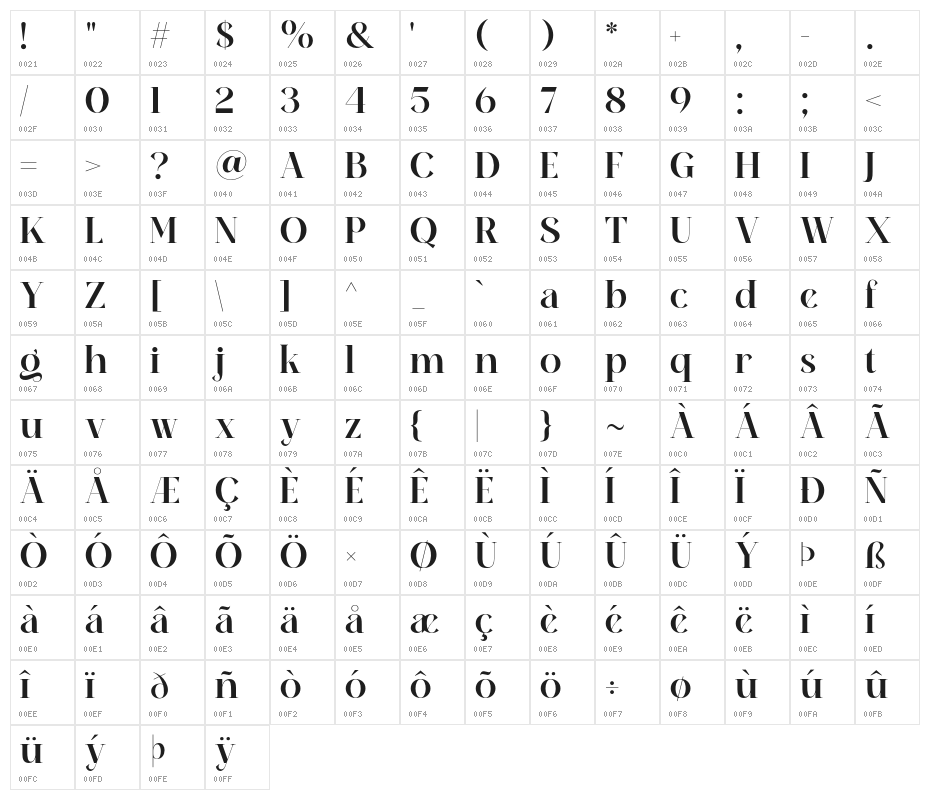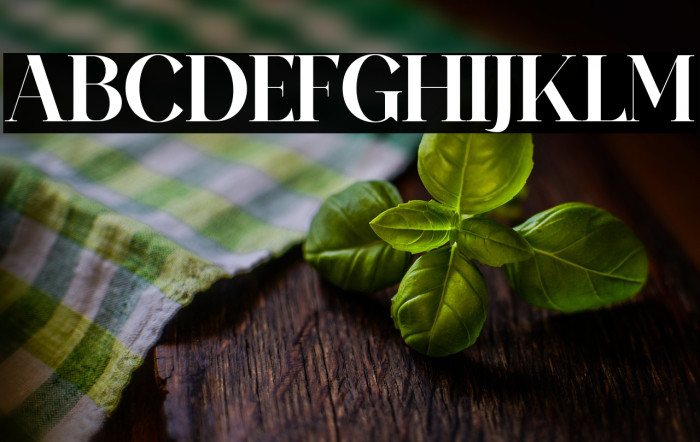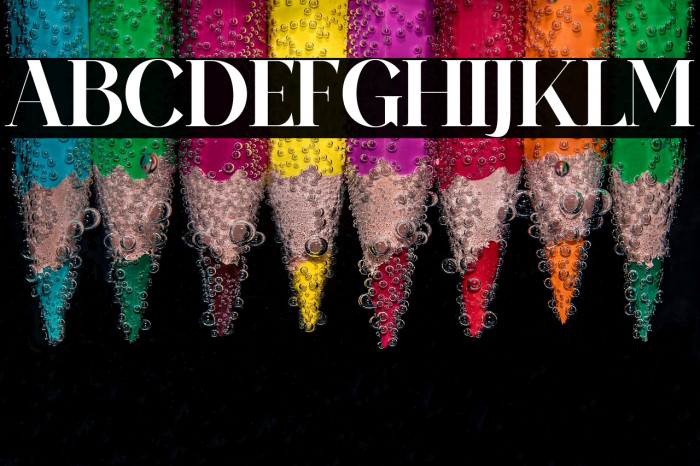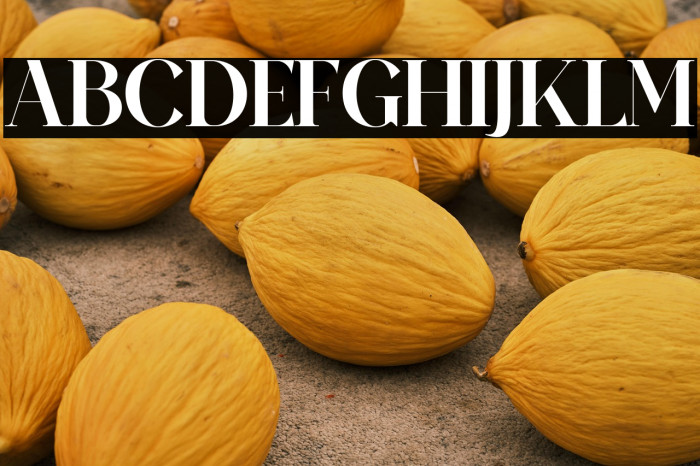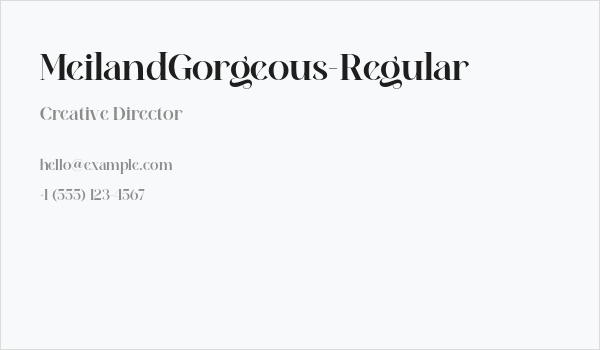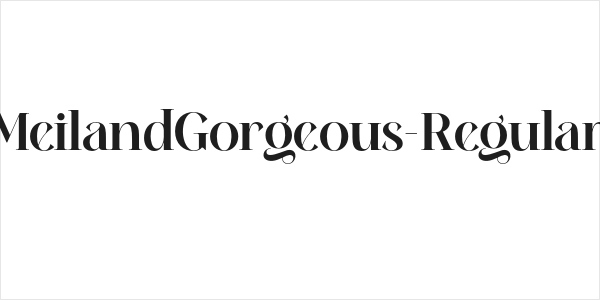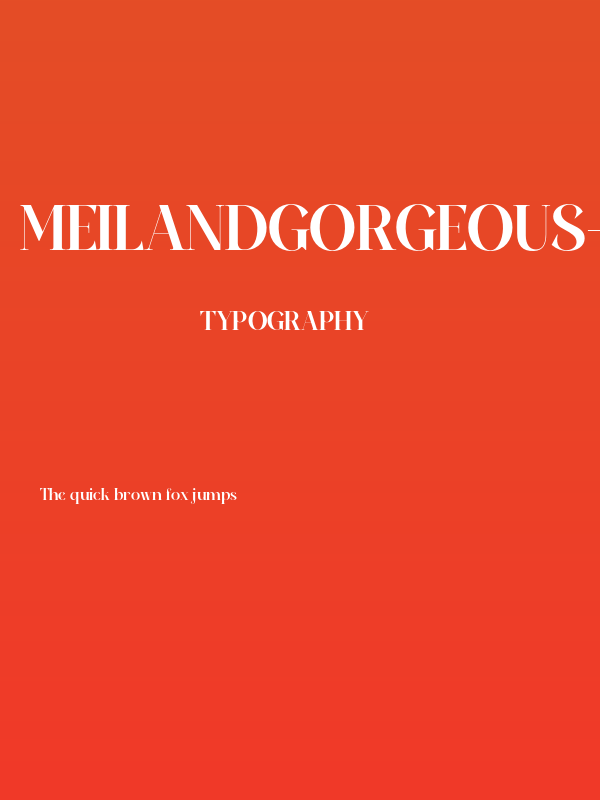
MeilandGorgeous-Regular Font
MeilandGorgeous-Regular Description
This font exudes elegance and sophistication, characterized by its high contrast between thick and thin strokes. The uppercase letters are tall and commanding, with sharp serifs that add a touch of formality. The lowercase letters maintain a graceful flow, with some characters featuring unique, stylish curves that enhance its overall aesthetic. The numerals are bold and clear, making them stand out effectively. Special characters are designed with the same attention to detail, ensuring consistency throughout the typeface. This font is perfect for making a statement, whether in print or digital media.